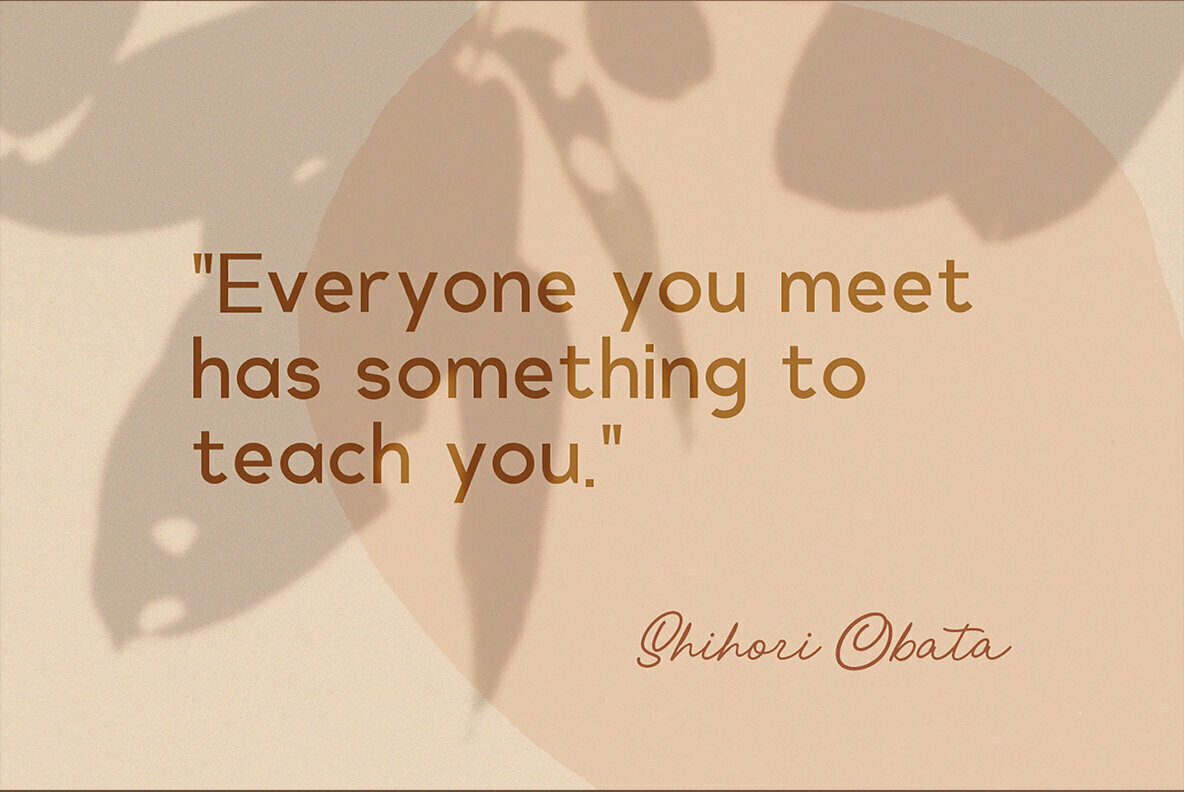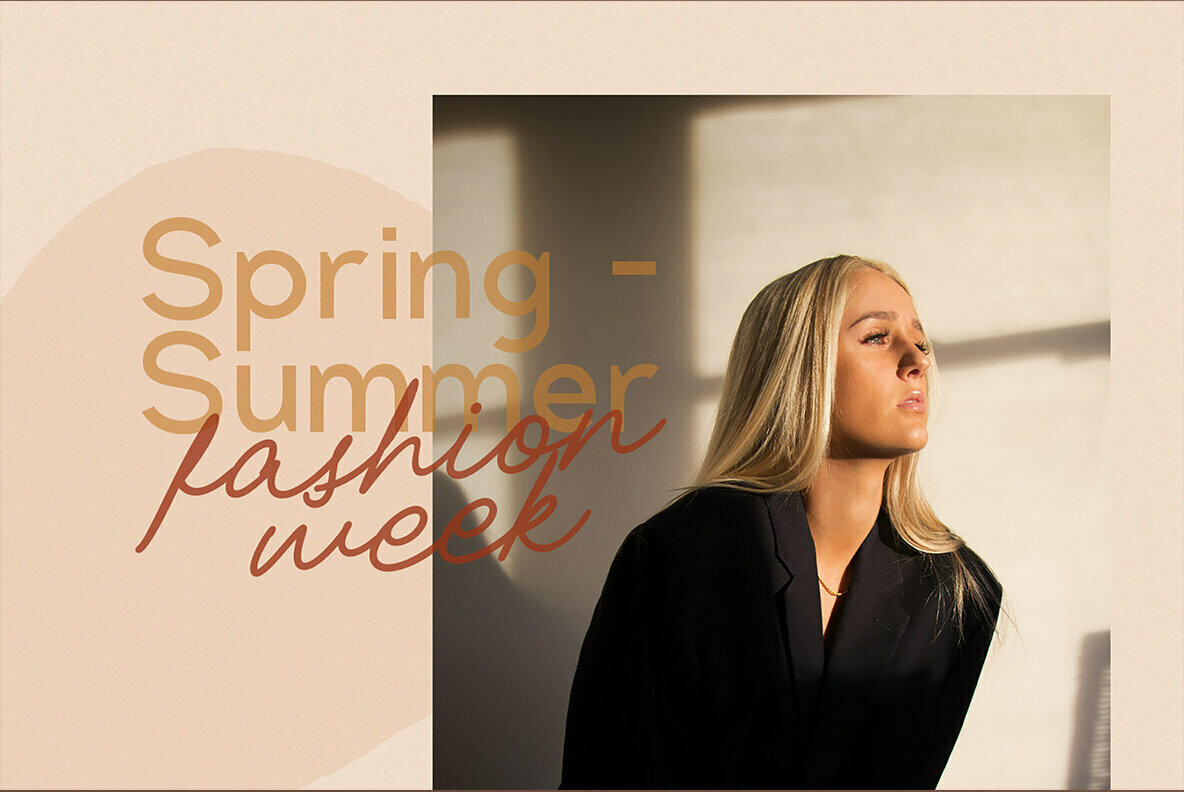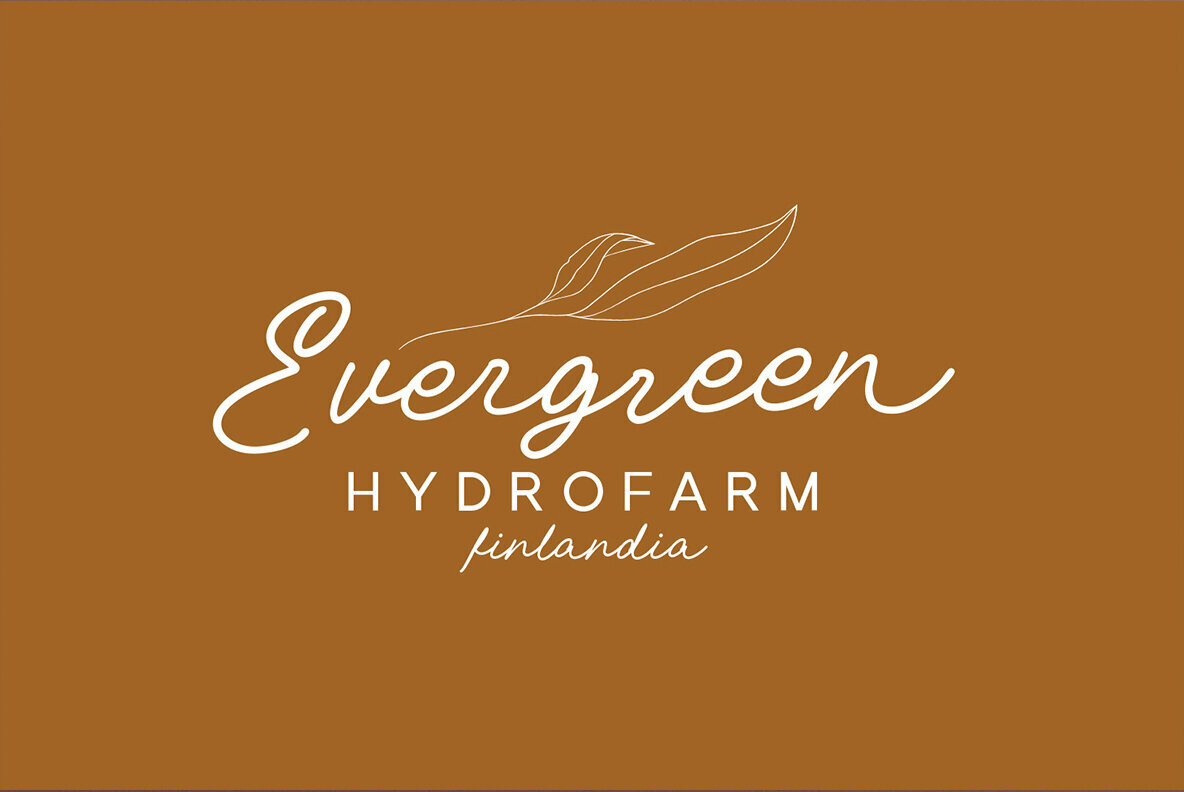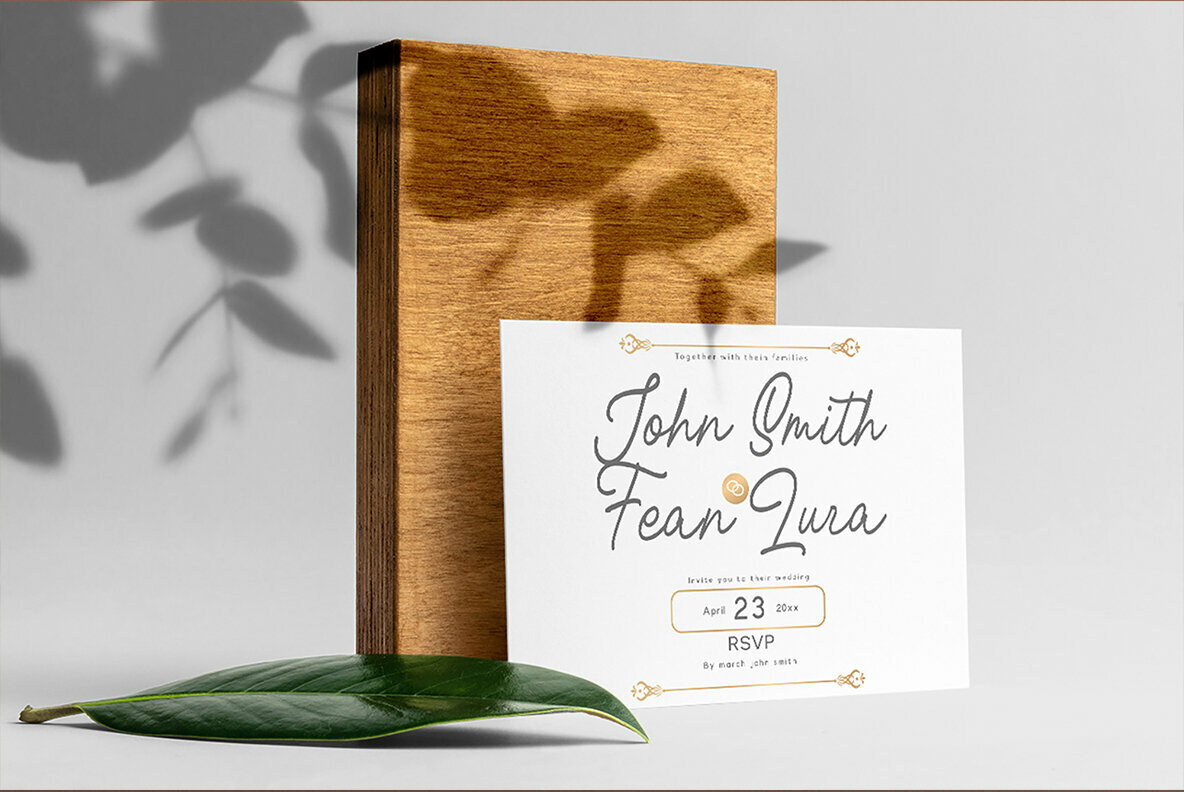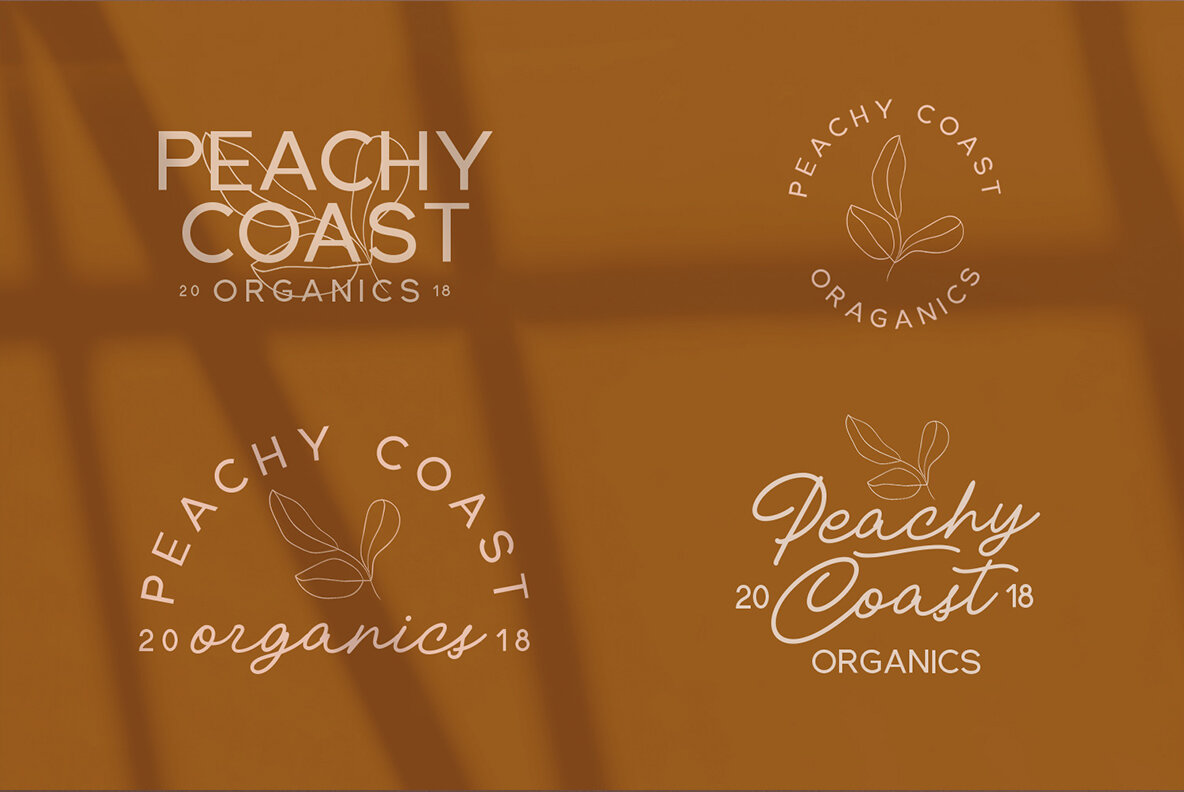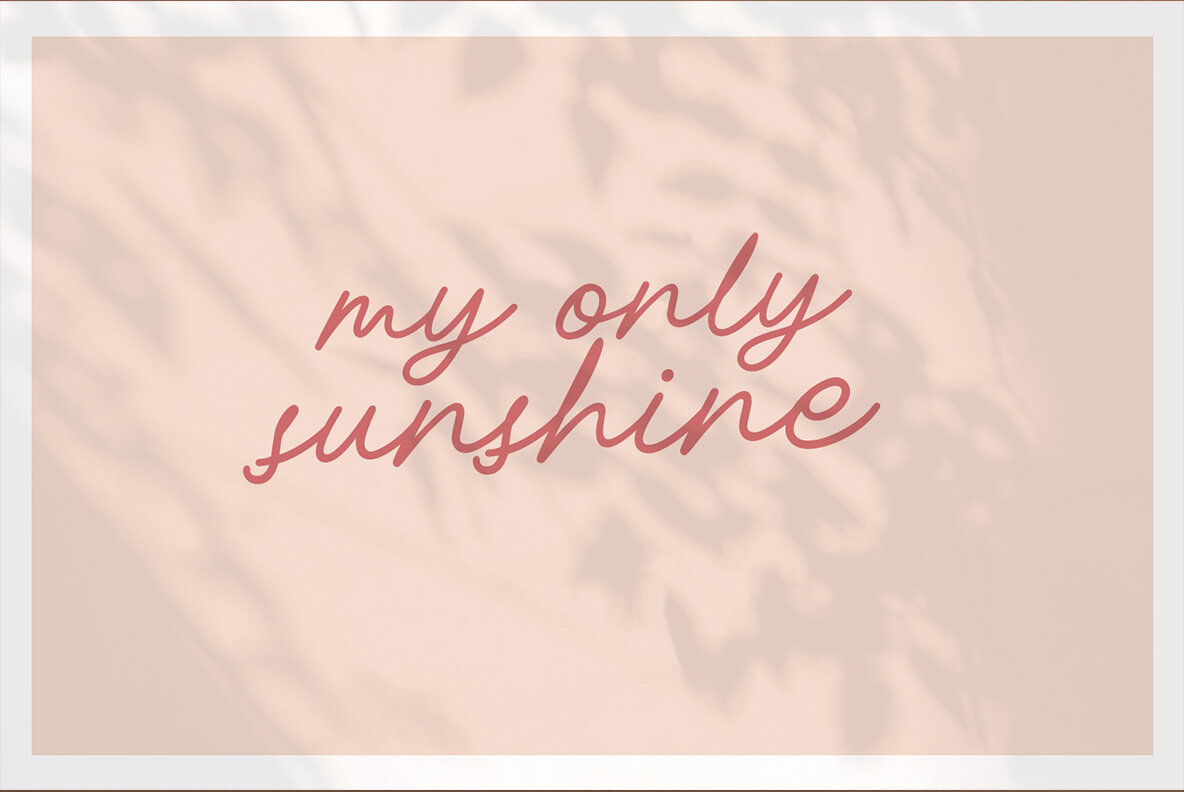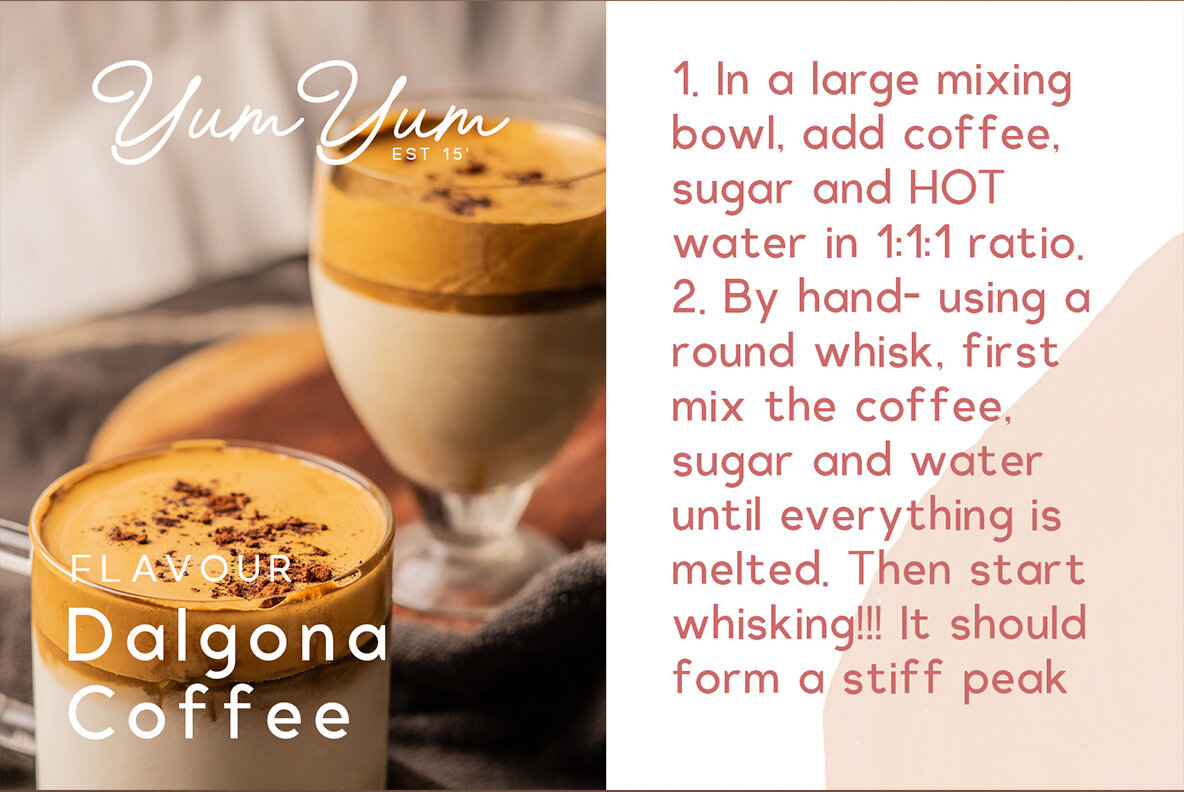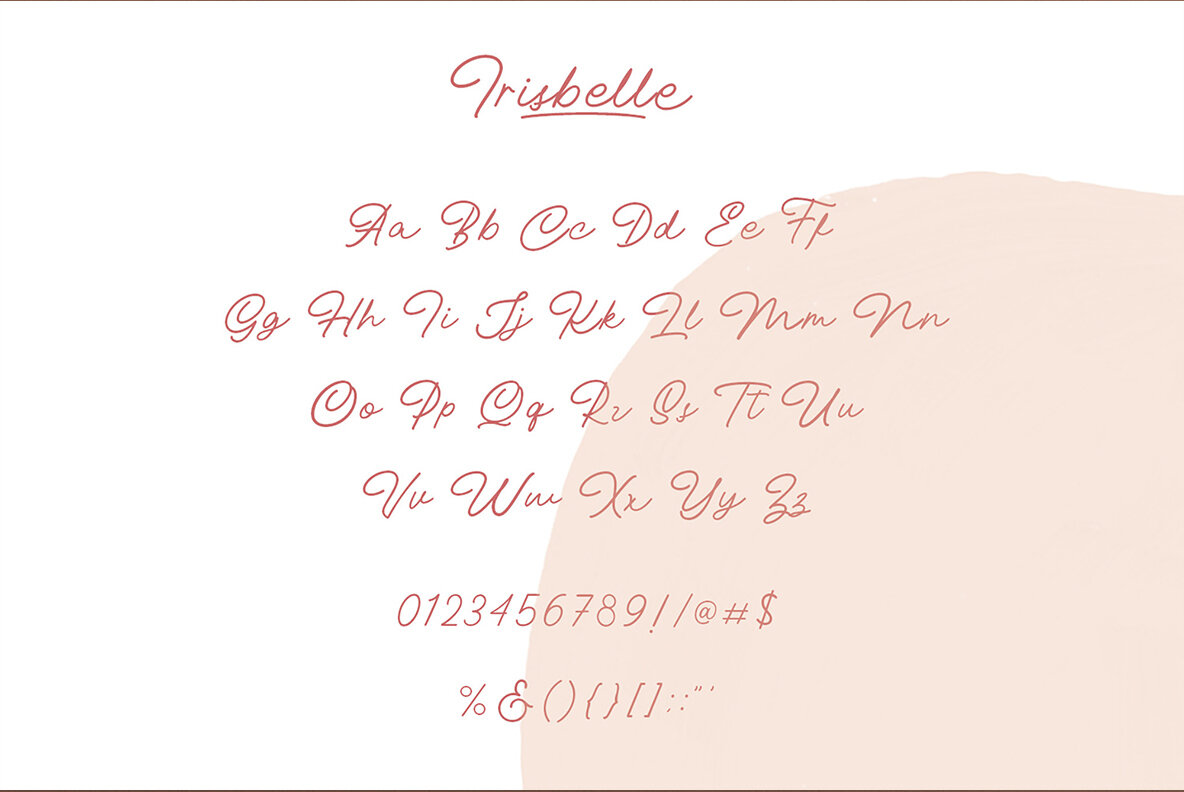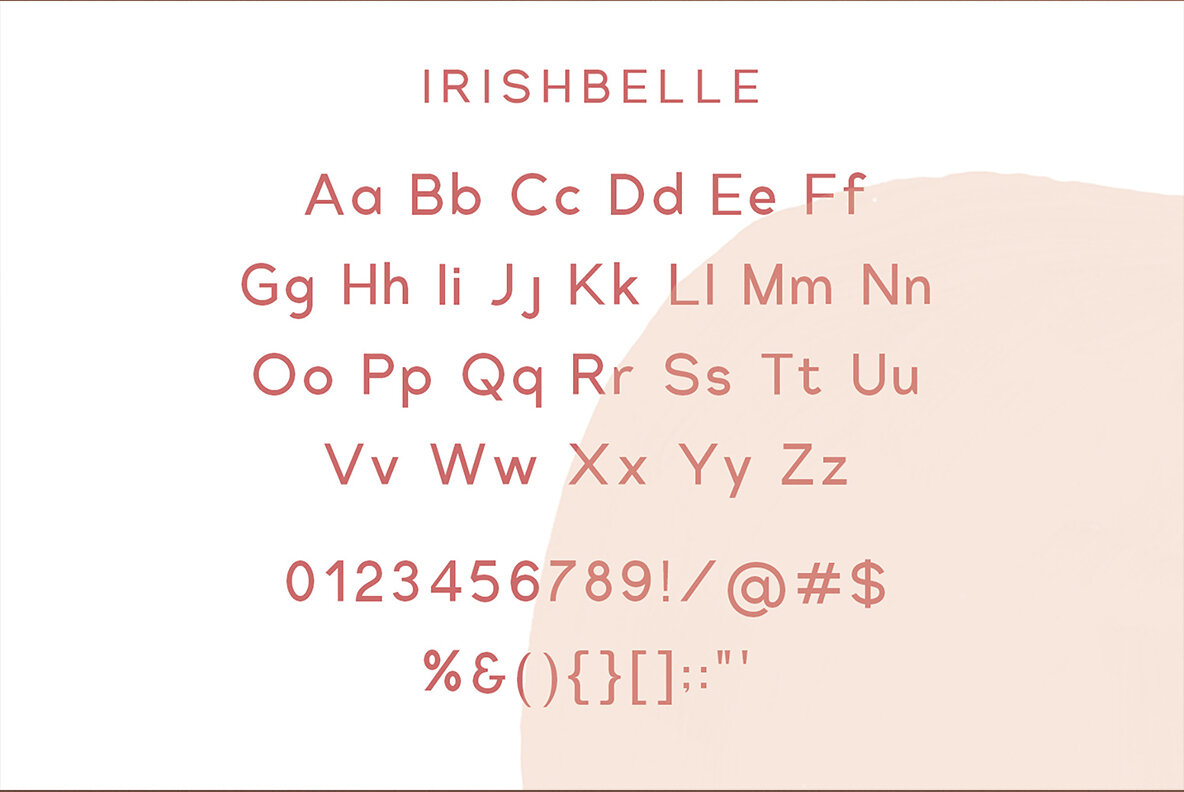
IrishBelle Font Duo
Irishbelle Regular
Irishbelle Script
IrishBelle Font Duo offers a harmonious blend of sans serif and script styles, crafting a versatile tool for designers seeking to add character to their projects. Its dual nature allows for both striking headlines and elegant body text, making it a smart choice for a varied array of design work across digital and print.IrishBelle: A Dynamic Font Duo for Creative Designers
The IrishBelle Font Duo, with its seamless integration of styles, is poised to enhance your creative projects, from branding to editorial layouts. Designed with flexibility in mind, it caters to the evolving demands of graphic design professionals aiming to create sophisticated and impactful visuals.